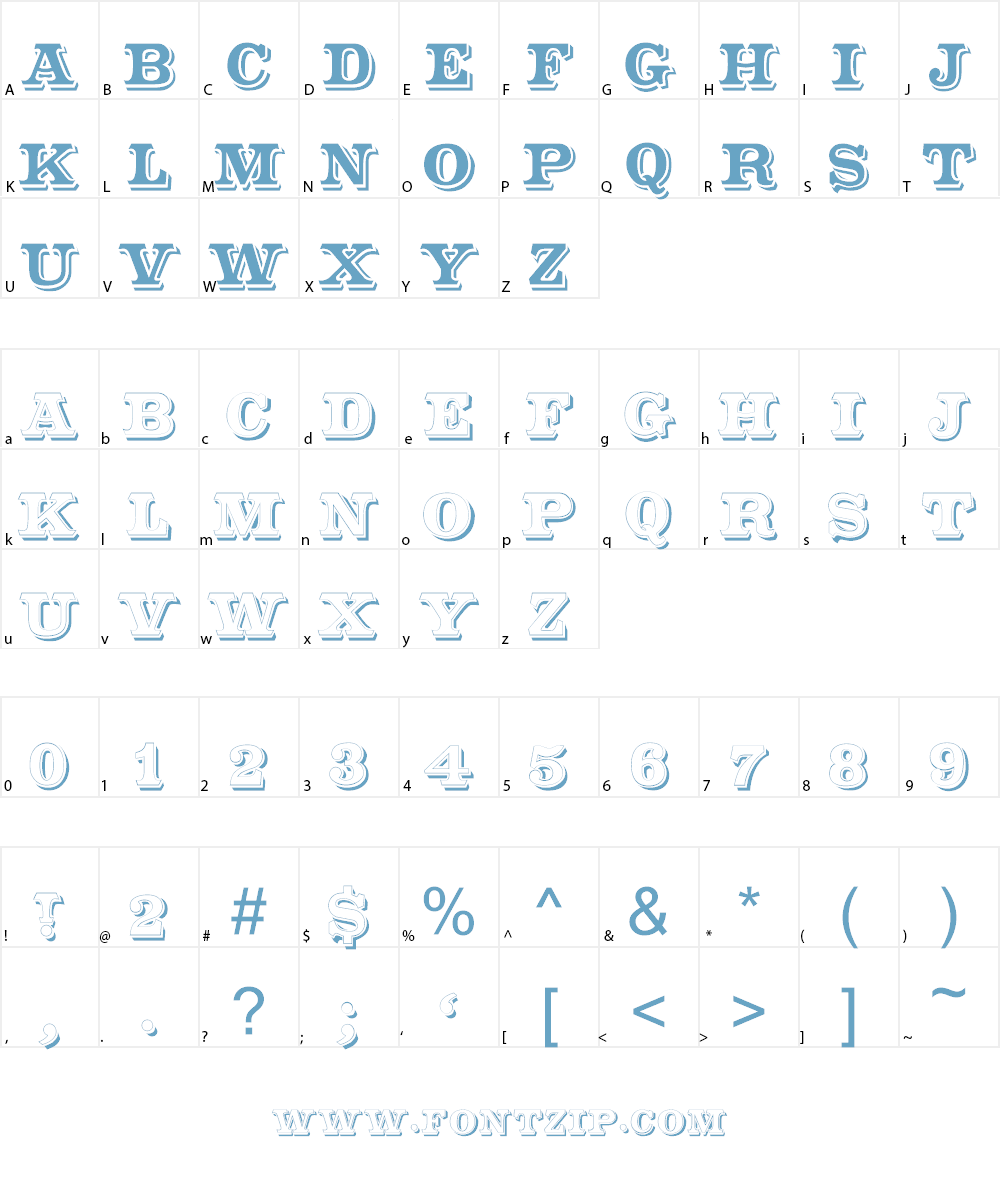
As seen on page 17 of the Solotype Catalog. This is a shadowed outline version of the all-upper case typeface NightShade. The original A-Z NightShade characters are found in Cameo Antique's lower case range.